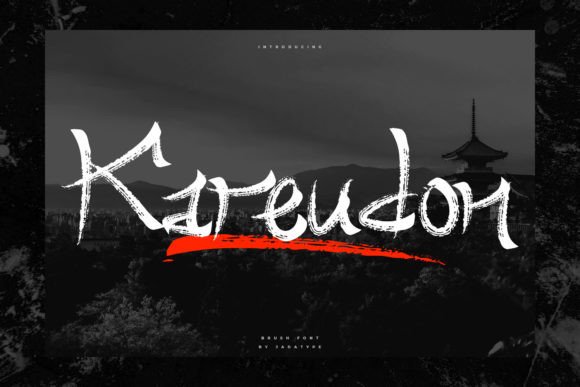
Journey into the world of captivating artistry with Kareudon Font, a striking display font that embodies the essence of Japanese brush strokes. This font is not just a collection of letters; it's an invitation to embark on a visual expedition where creativity and imagination intertwine.
With its bold, sweeping lines and expressive characters, Kareudon Font breathes life into your designs, transforming them into mesmerizing visual masterpieces. Allow your imagination to dance across the canvas as you craft social media posts that pop, music covers that sing with style, branding that exudes personality, and products that come alive with a touch of artistic flair.
Kareudon Font is the perfect companion for those with a passion for handwritten expression. Its organic, free-flowing style adds a personal touch to your creations, making them feel as if they were carefully crafted by an expert calligrapher. Whether you're designing logos, creating marketing materials, or simply adding a touch of elegance to your personal projects, Kareudon Font is the ultimate choice for those who seek to make a lasting impression.
Say goodbye to ordinary and embrace the extraordinary with Kareudon Font. Unleash the power of artistic expression and transform your designs into captivating works of art. Let your creativity soar as you craft visual masterpieces that leave an indeliable mark on the hearts and minds of your audience.